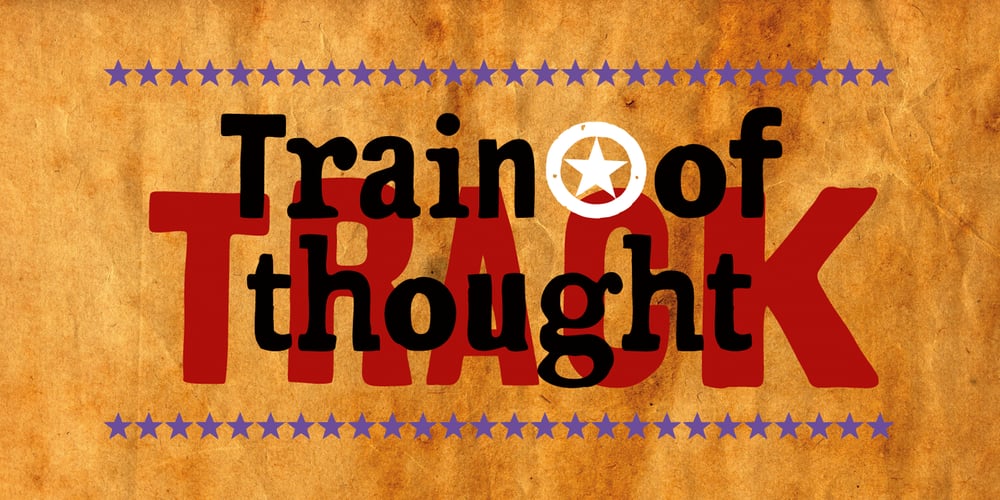
Train Of Thought Font Family was designed by Dragan Pešić, Ana Pešić and published by Pesic. Train Of Thought contains 1 styles and family package options. Train of thought is a decorative font based on vintage and retro posters of the 19th and 20th centuries. Contains all Latin and Cyrillic glyphs. It is very modern, and it is intended for the use of creating logos and T-shirt designs as well as highlighting the essential elements on billboards, magazines, etc. Today’s digital designers can use these stencil patterns to embellish text set in other alphabet stencils or by themselves to evoke the feeling of rustic Americana. Train of the thought is extremely detailed, and looks good in both small and large dimensions. It also contains a set of symbols, which you can use to further emphasize the essential elements.